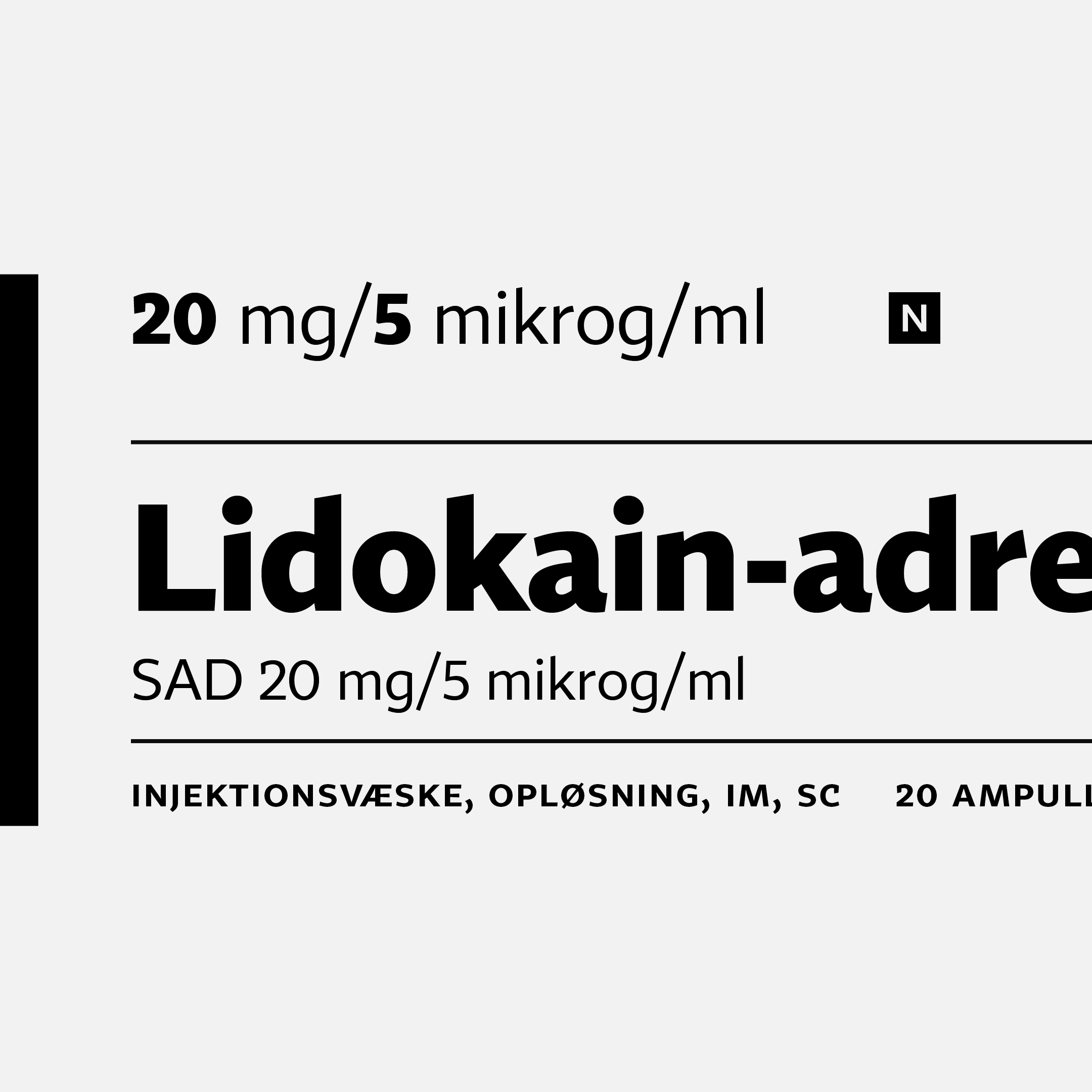
Tabac Sans
Tabac Sans is a linear sans-serif dynamic typeface that blurs the distinction between text and display styles. Its humanist foundation ensures excellent legibility even in the smallest sizes, while subtle design features and a wide range of alternate glyphs are especially effective in display typography. The broad range of weights makes this type family a versatile tool for composing complex magazine and newspaper layouts.
Seven weights, from hairline to extra dark, seamlessly meet the demands of both demanding text setting and display typography. The character design is robust, with letters firmly anchored on the baseline; the larger x-height and formal variety support easy character differentiation and readability at small sizes. The monolinear character of the lighter weights smoothly transitions into a more contrasted design in the heavier styles.
This sans-serif family is part of the Tabac superfamily type system.